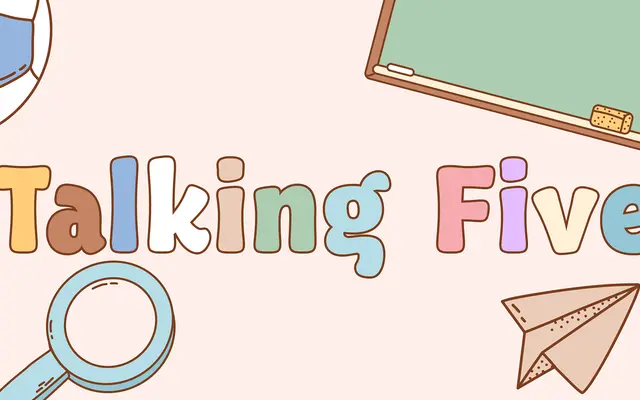
Talking Five
A hand-drawn sans serif aimed at children's publishing, toy packaging and school materials with a warm, informal character.
Soft, irregular letterforms give Talking Five an approachable quality suited to children's textbooks, activity materials and toy packaging. The hand-drawn construction avoids the rigidity of geometric or grotesque styles, lending layouts a casual warmth. A straightforward single-weight offering from Dharma Type for projects where friendliness is the primary requirement.
Classified as display due to its hand-drawn character and intended use in posters, packaging and children's materials rather than continuous text. The informal, rounded letterforms place it firmly in the hand-drawn sans subcategory.